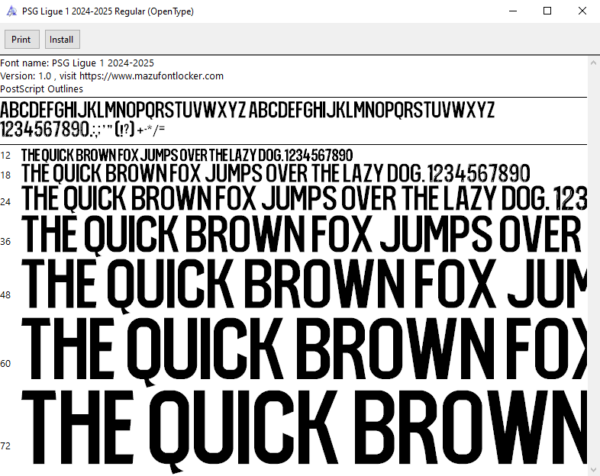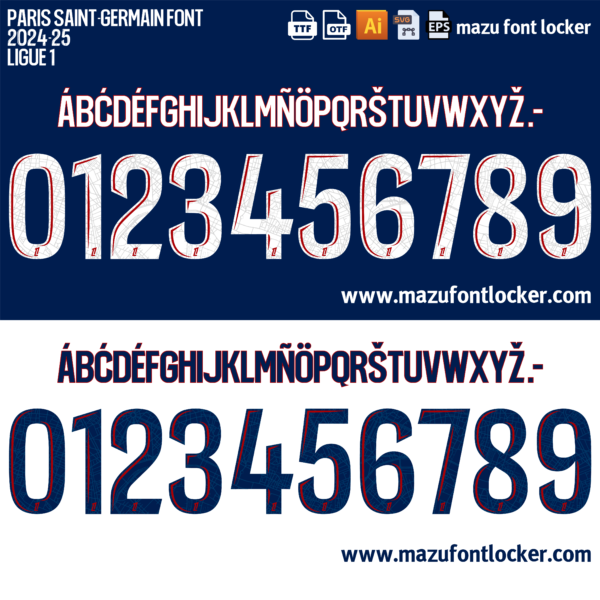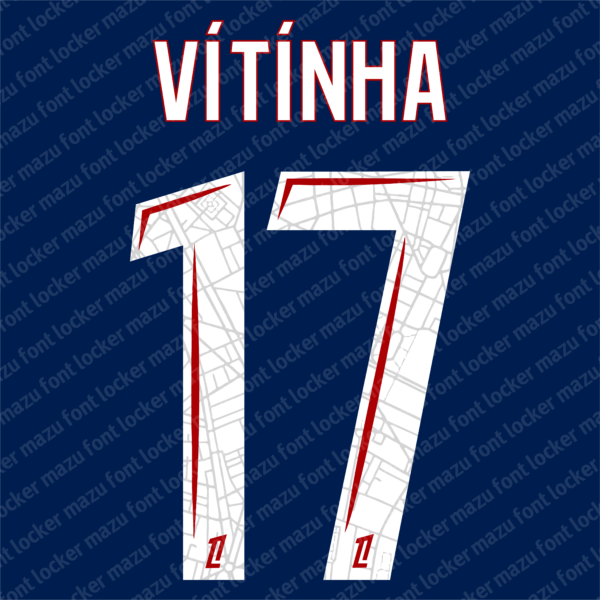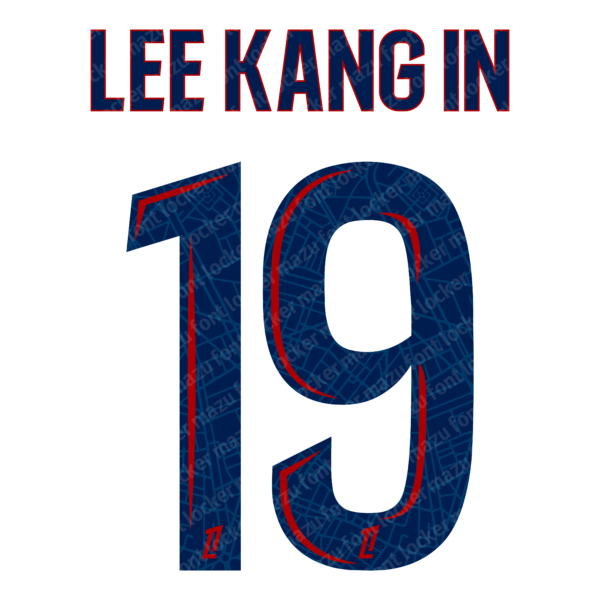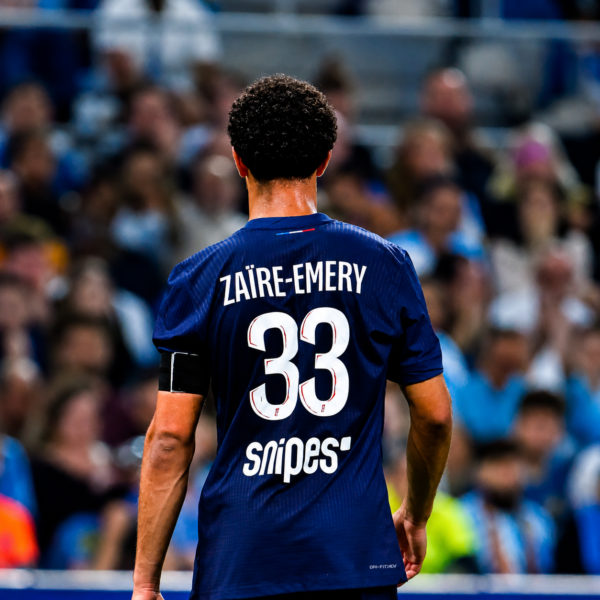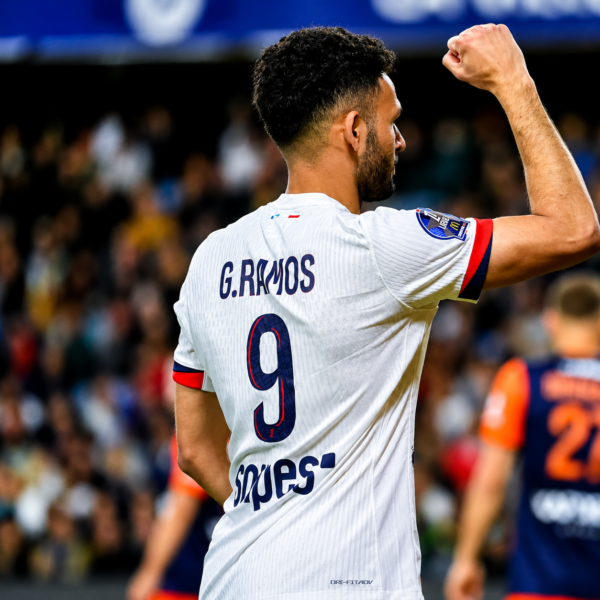
PSG 2024-2025 Font Vector – Epic Parisian Masterpiece
Download this stunning PSG 2024-2025 Font and elevate your designs with the authentic spirit of Paris Saint-Germain. This high-quality vector font perfectly captures the bold and luxurious identity of the club for the 2024-2025 season.
The PSG 2024-2025 Font delivers powerful typography that exudes confidence, elegance, and dominance — ideal for posters, social media graphics, t-shirts, branding, and fan merchandise. Every letter has been carefully crafted to reflect the club’s iconic blue, red, and gold aesthetic.
Whether you’re a dedicated PSG supporter or a professional designer, the PSG 2024-2025 Font gives your projects that premium French football touch. With smooth curves, strong presence, and exceptional versatility, this font stands out as one of the most stylish football fonts available this season.
PSG 2024-2025 Font Vector
The PSG 2024-2025 Font is a premium, high-precision football jersey font vector meticulously engineered to capture the fearless dominance, explosive passion, and electrifying identity of Paris Saint-Germain’s legendary 2024-2025 season.
Inspired by the mighty Parisians and their iconic, high-intensity performances throughout the unforgettable 2024-2025 season, this font unleashes a bold, majestic, and devastatingly powerful presence that radiates unbreakable PSG pride, rich heritage, and unstoppable champion spirit. Every letter and number has been painstakingly recreated with razor-sharp precision to embody the vibrant blue, red, and gold identity, relentless attacking mentality, and glorious legacy that makes Paris Saint-Germain one of the most feared and admired forces in European football.
Feel the fire of the Parc des Princes. Ignite the passion. Unleash the legendary spirit of the Parisians and the unstoppable power of PSG 2024-2025.
• Authentic 2024-2025 PSG  jersey lettering style
The authentic lettering style helps recreate the classic look of the PSG 2024-2025 kit with professional accuracy.
Unlike generic jersey fonts, this premium PSG 2024-2025 Font set is meticulously designed with uncompromising authenticity and razor-sharp accuracy. Every curve and detail is faithfully recreated from the official match lettering style used by Paris Saint-Germain throughout the 2024-2025 season, empowering designers and collectors to produce incredibly realistic football shirt designs.